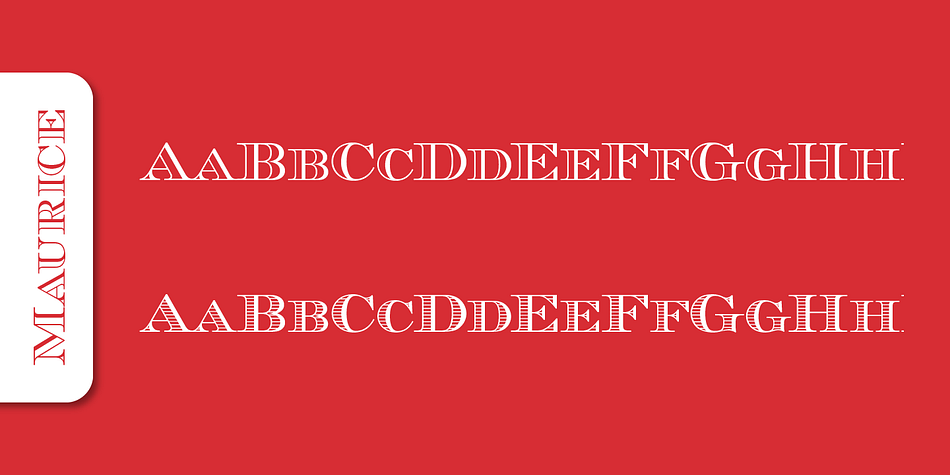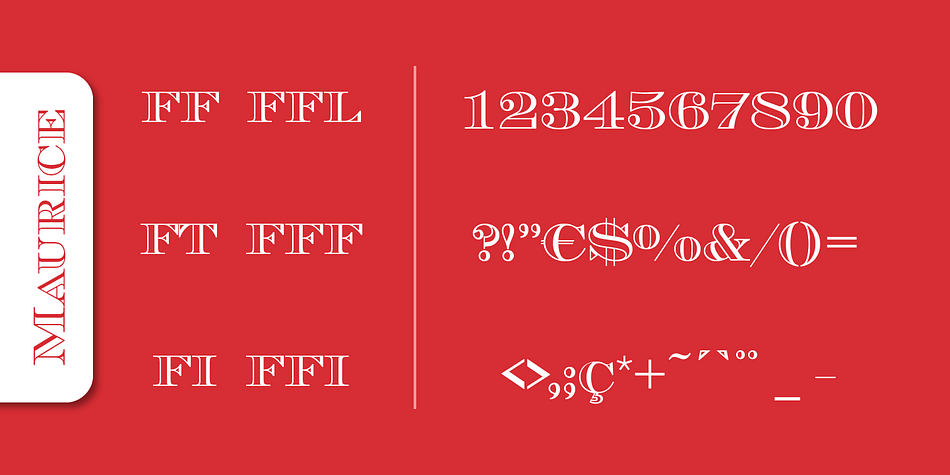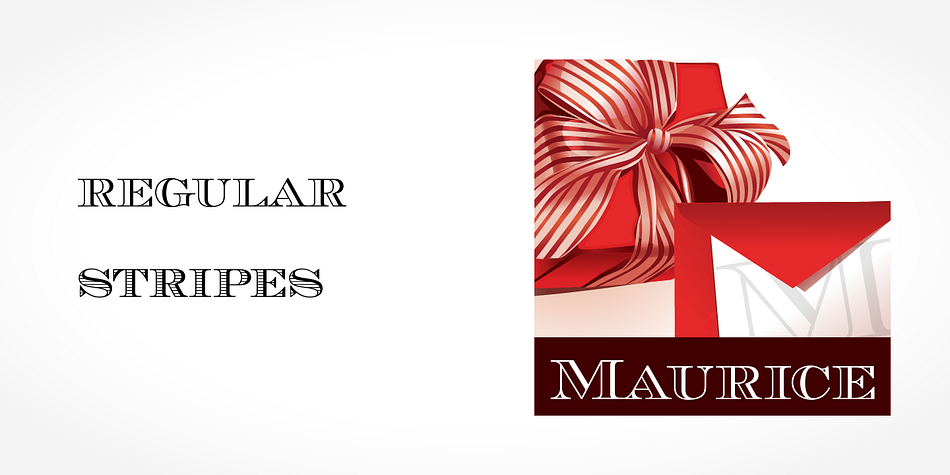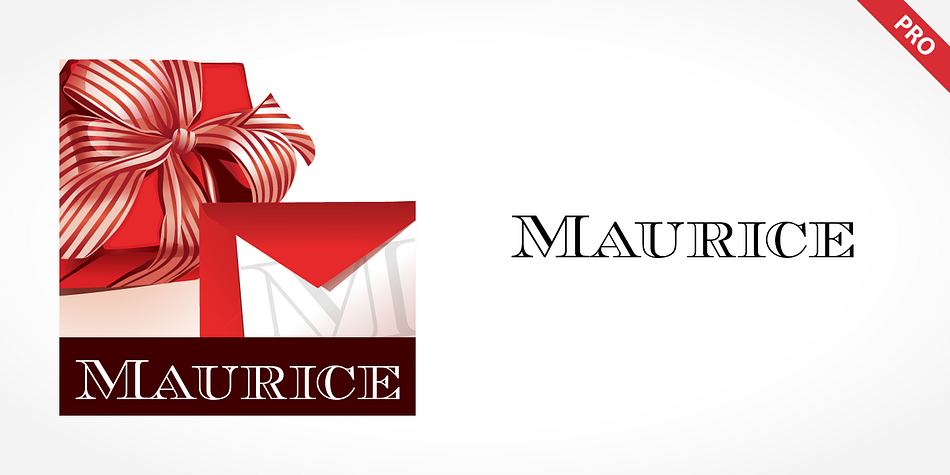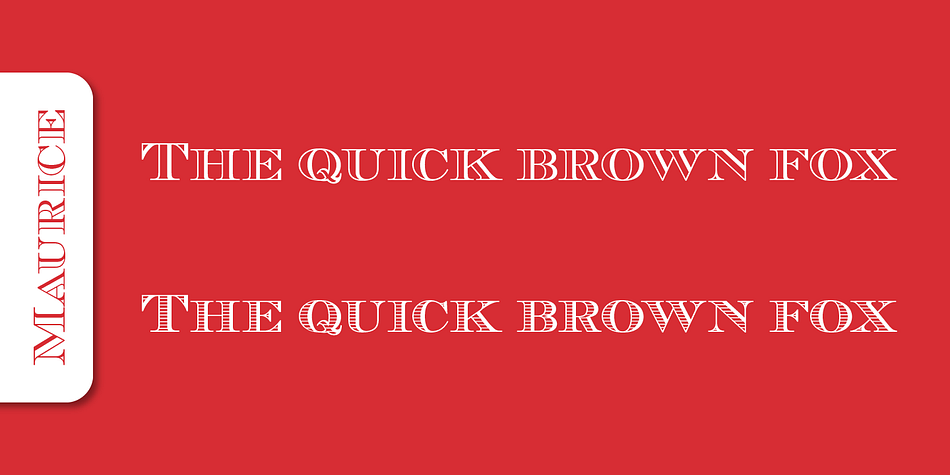
Maurice Pro
Maurice Pro is a display serif font family. This typeface has two styles and was published by SoftMaker.
Maurice Pro’s engraved, stripe decorations and fat face letterfoms were popular trends in 19th century design. They were commonly used on things such as stock certificates and money but were also frequently seen on letterheads and business cards. This type family can still be used on a wide variety of projects today, but is perfect to add a historical touch to logos, posters, or branding for many kinds of financial, political, or legal practices.